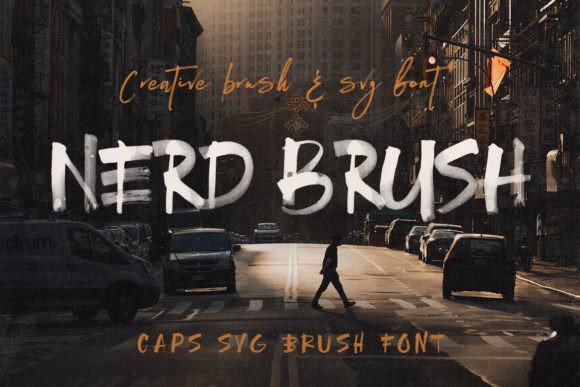
Prepare to be mesmerized by NerdBrush, the font that embodies audacity and exudes personality! This captivating script font, brought to life by the creative minds at JumboDesign, is not just a collection of letters; it's an artistic expression waiting to ignite your designs.
With its bold strokes and distinctive style, NerdBrush commands attention, making it the perfect choice for headlines, logos, and any graphic element that demands impact. Its expressive nature adds a touch of uniqueness to your designs, setting them apart from the ordinary.
Imagine your brand's logo adorned with the bold strokes of NerdBrush, instantly capturing the essence of your business and leaving a lasting impression on your audience. Or envision your packaging transformed into a canvas of creativity, where NerdBrush's expressive style dances across the surface, inviting customers to engage with your product.
NerdBrush's versatility extends beyond branding and packaging. It shines in editorial design, adding a touch of intrigue and personality to articles, magazines, and other written content. Its ability to blend beauty and boldness seamlessly makes it an ideal choice for creating eye-catching headlines that draw readers in and leave them craving more.
One of the key features that sets NerdBrush apart is its PUA encoding. This means that accessing all the glyphs and swashes is effortless, allowing you to unleash your creativity without limitations. Experiment with different letter combinations, explore the nuances of each glyph, and let your imagination run wild as you create designs that resonate with your audience.
NerdBrush is more than just a font; it's an opportunity to infuse your designs with personality and make a statement. Whether you're a designer, marketer, or creative professional, NerdBrush is your key to unlocking a world of visual impact and captivating expression. Embrace the boldness, unleash your creativity, and let NerdBrush transform your designs into masterpieces that leave a lasting impression.